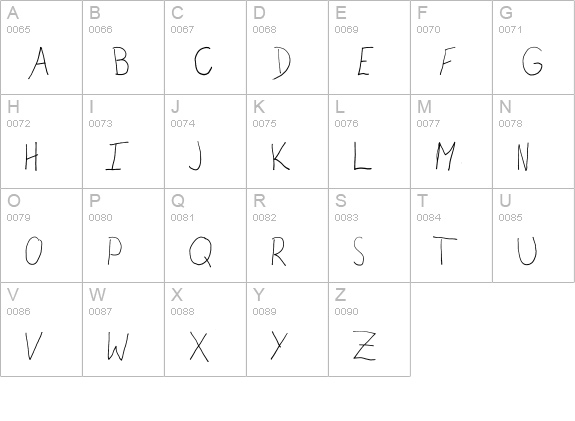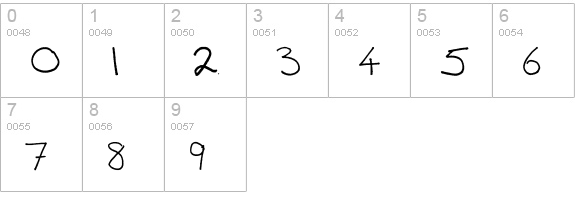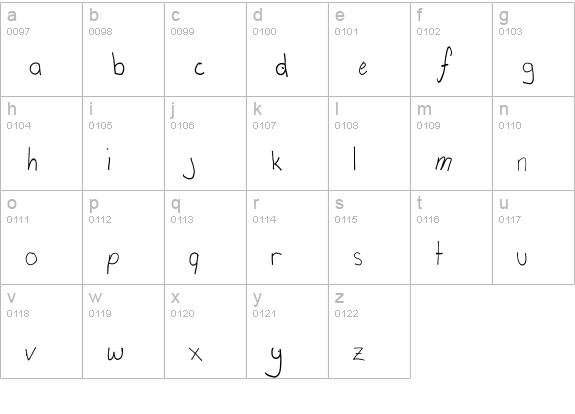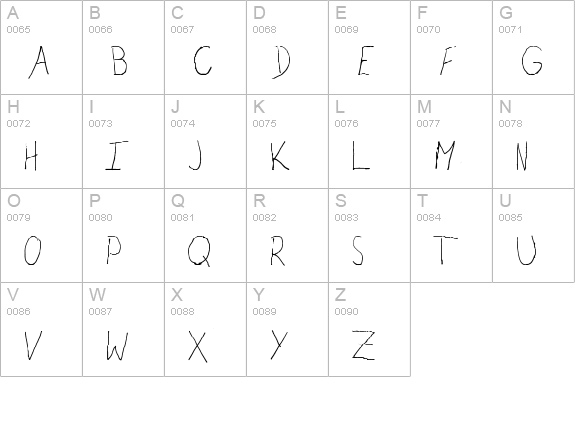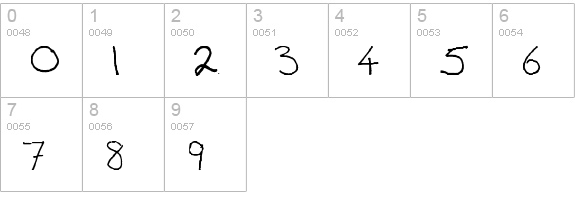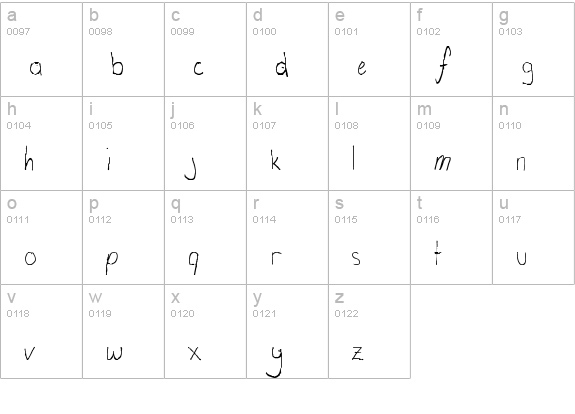
Calis in Puppetland Font Details
In the heart of Puppetland lies Calis, a whimsical and enchanting font that captures the essence of playful imagination. With its graceful curves and charming details, Calis brings a touch of magic to any project it graces. This delightful font exudes a sense of wonder and joy, inviting you to explore new creative possibilities. Calis is a versatile typeface that can be used for a variety of design projects, from children's books to branding and packaging. Its unique character and distinctive style make it stand out from the crowd, adding a touch of whimsy to any design. And the best part? Calis is freely available to download at FontsMarket.com, making it easy for you to add a sprinkle of magic to your creative endeavors. So go ahead, unleash your imagination and let Calis transport you to a world of creativity and fun!